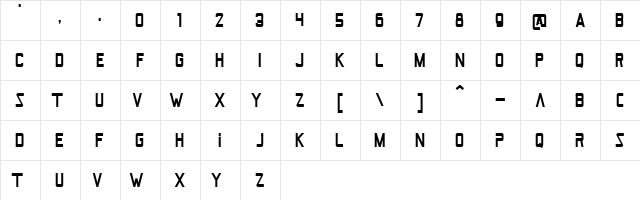
Jet Pilot Regular
| Foundry | Suandana I Pande Made |
| Designer | Suandana I Pande Made |
Design Context for Jet Pilot Typeface
Jet Pilot offers clean, dependable letterforms without strong stylistic allegiance, making it a practical choice for designers who need flexibility.